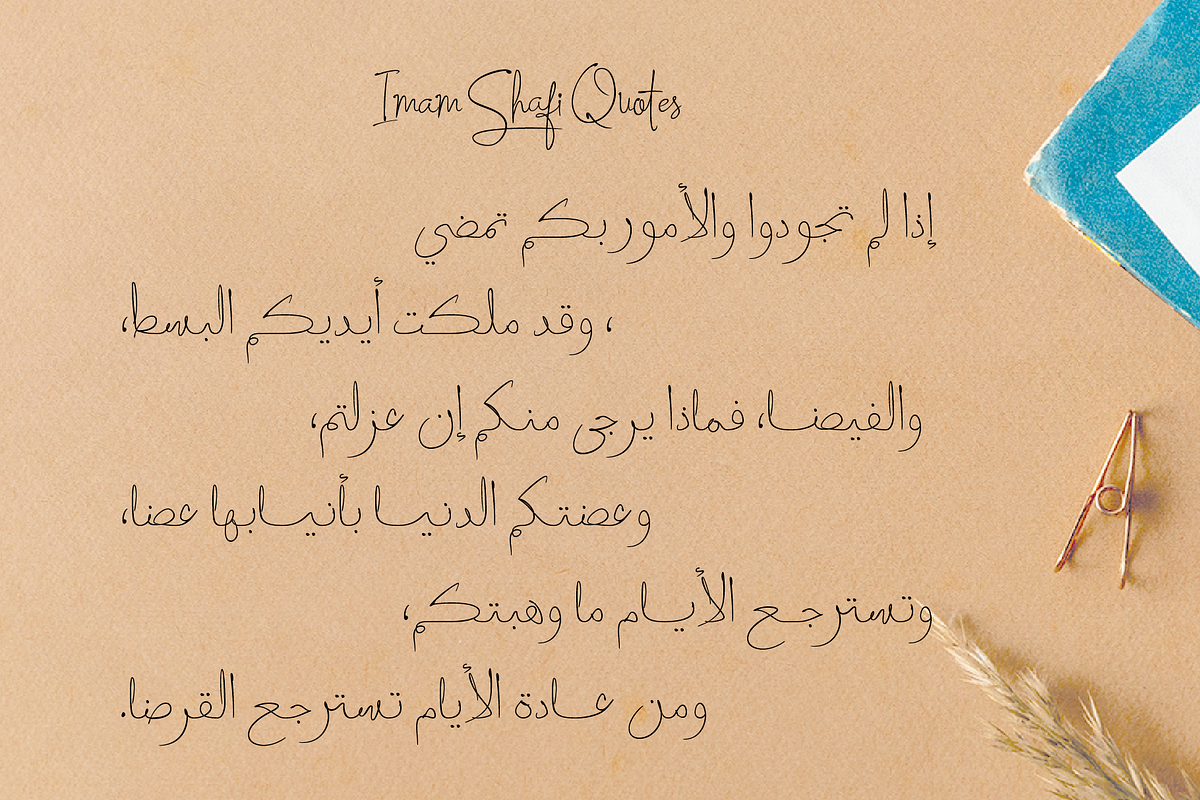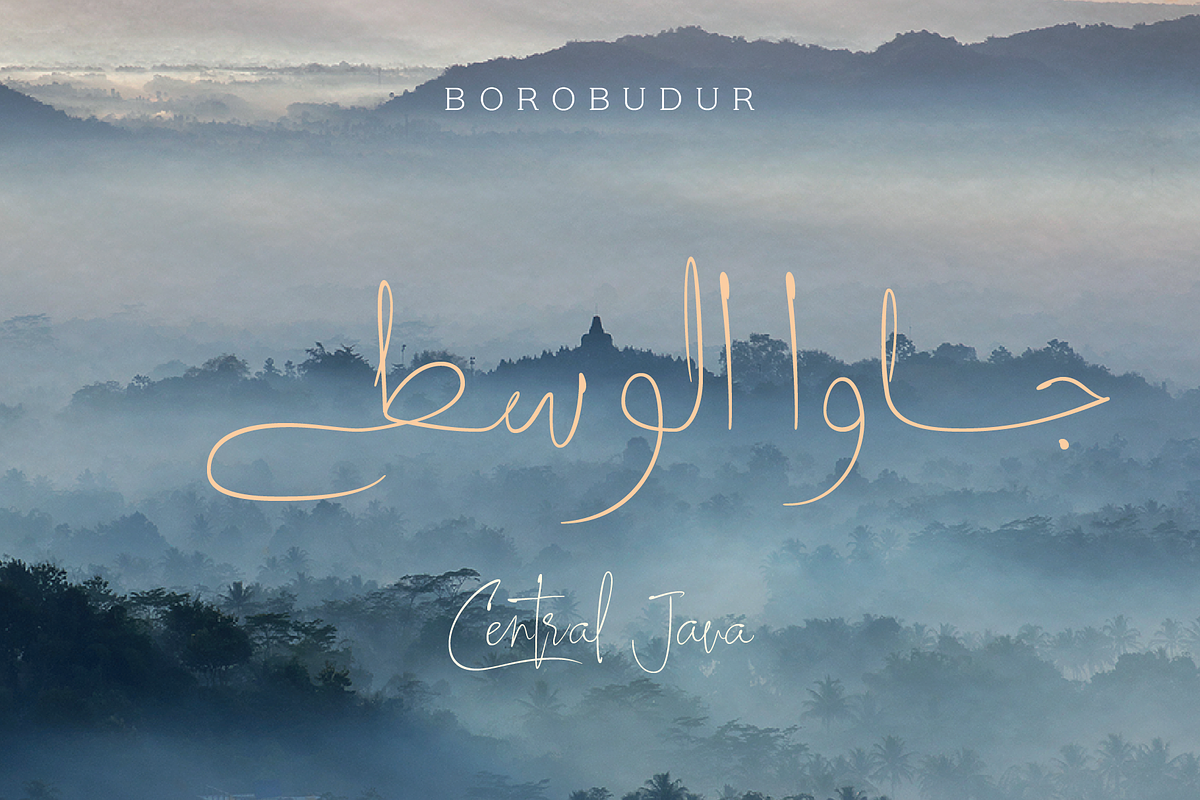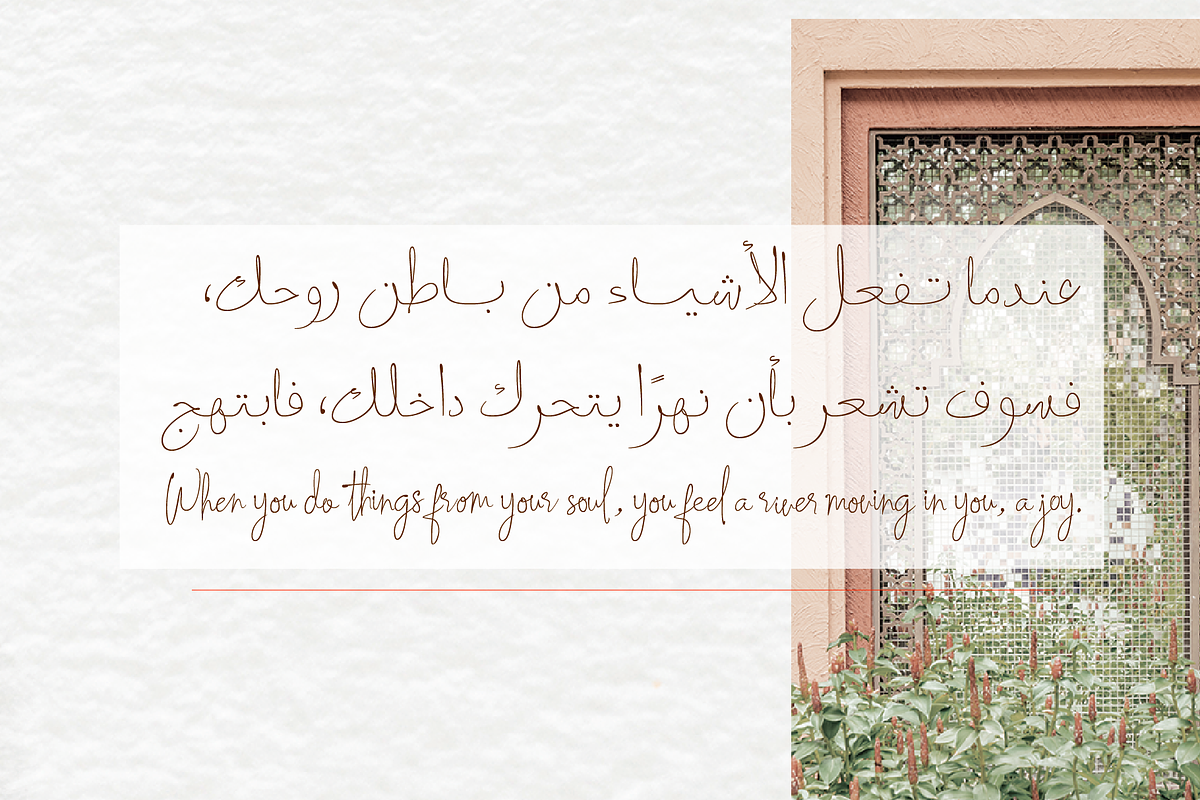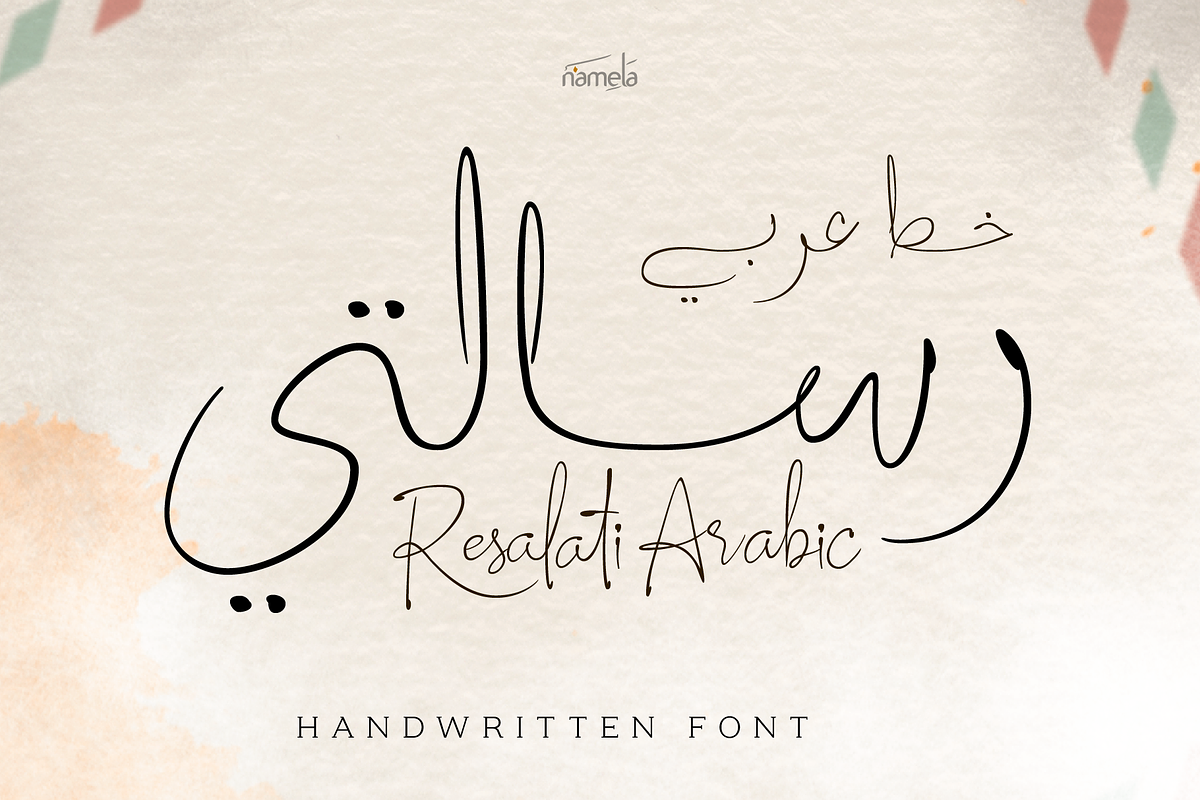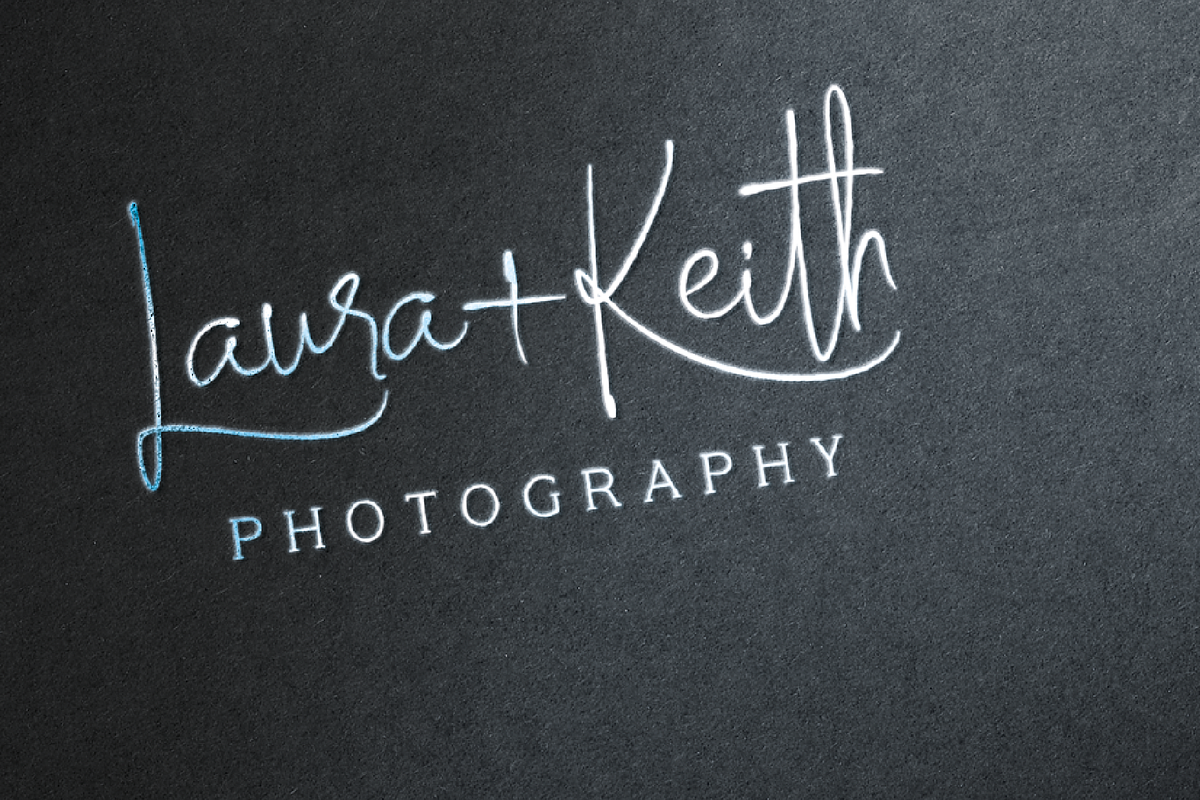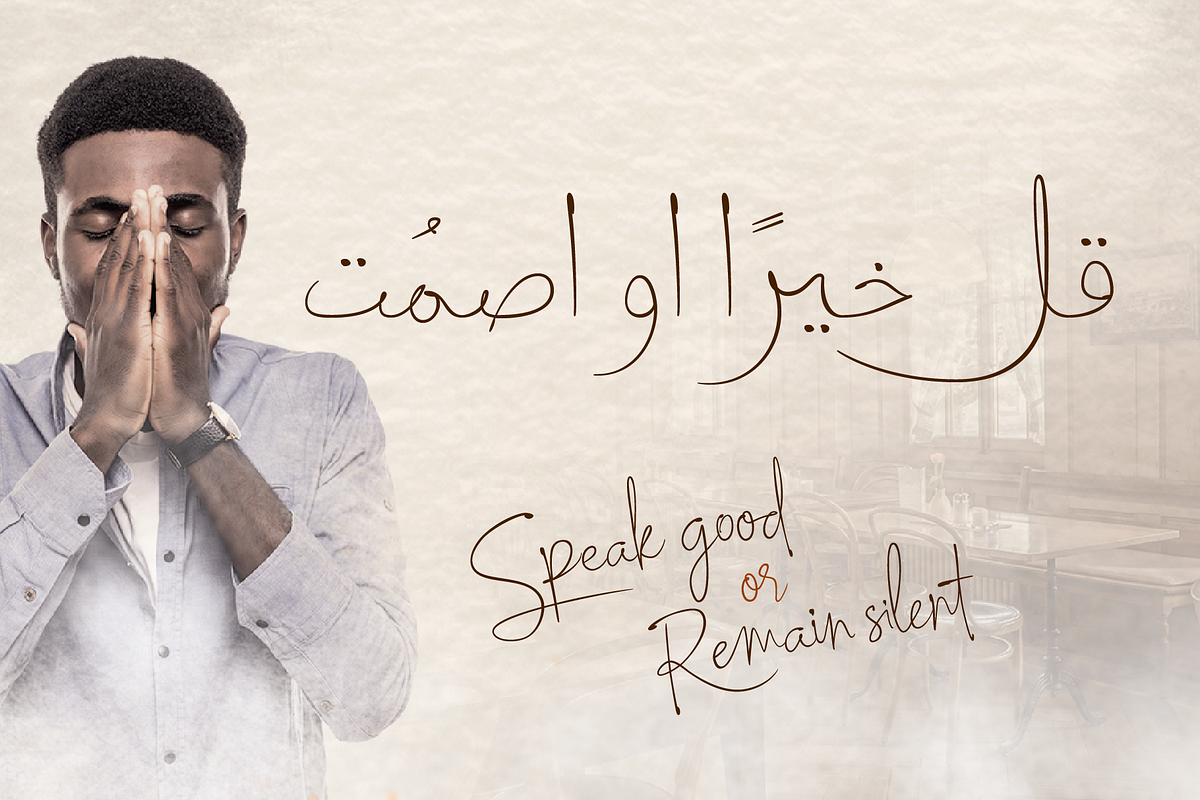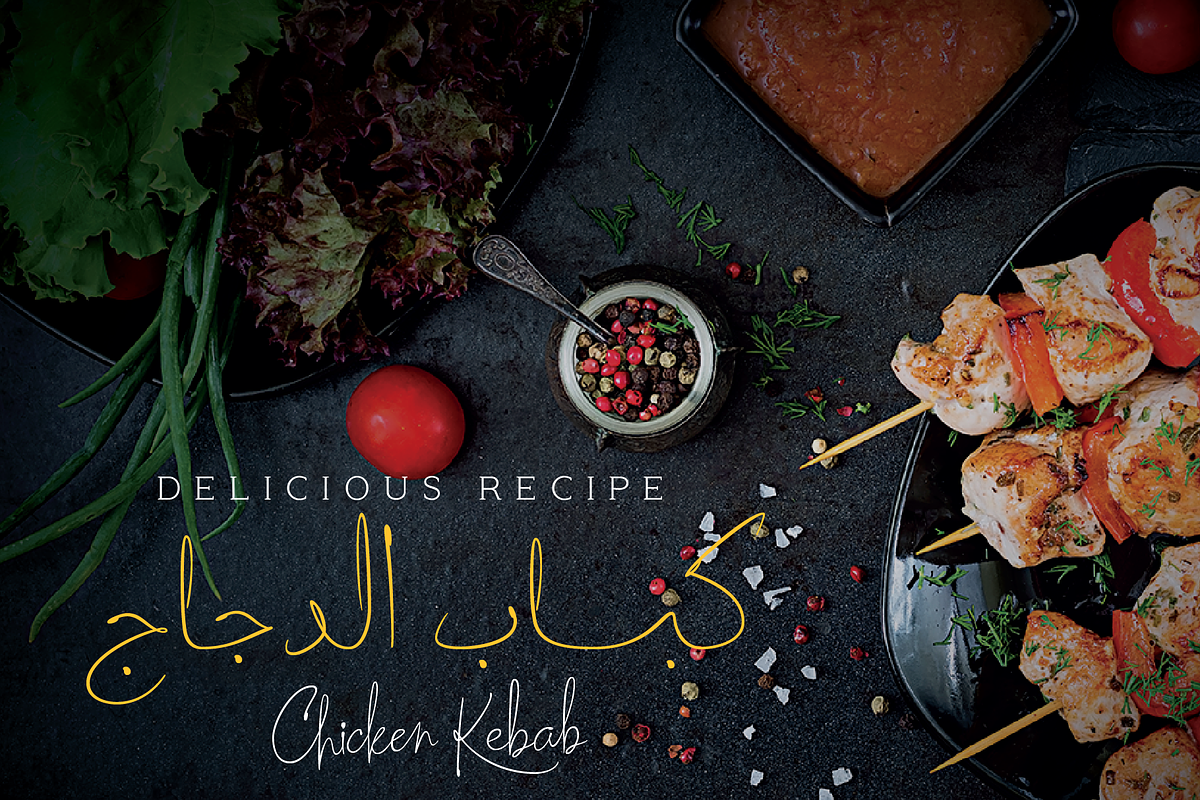
Resalaty Arabic - Handwritten Font
Resalaty Arabic is a cute and fashionable handwritten font. This is the plus version of Resalaty with the addition of Arabic characters, created to help you designing makes gorgeous logos, posters, wedding invitations, blog posts, social media, apparel and more!